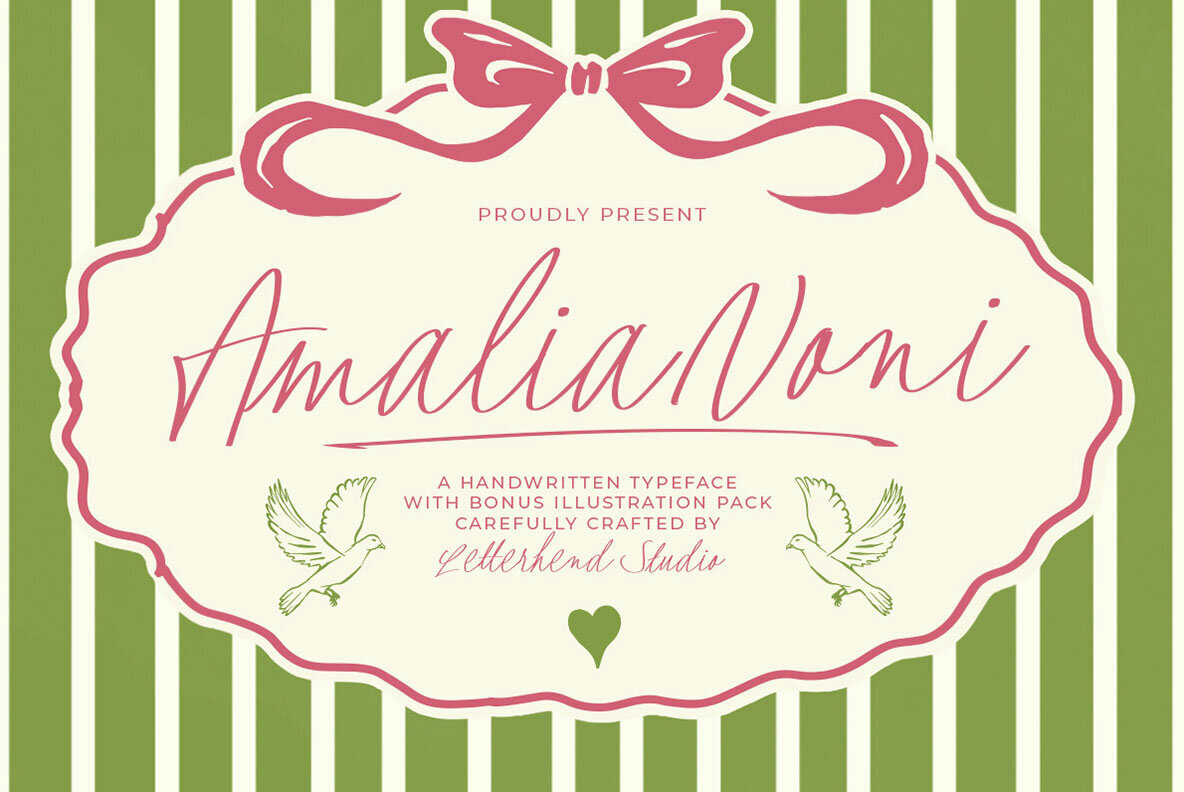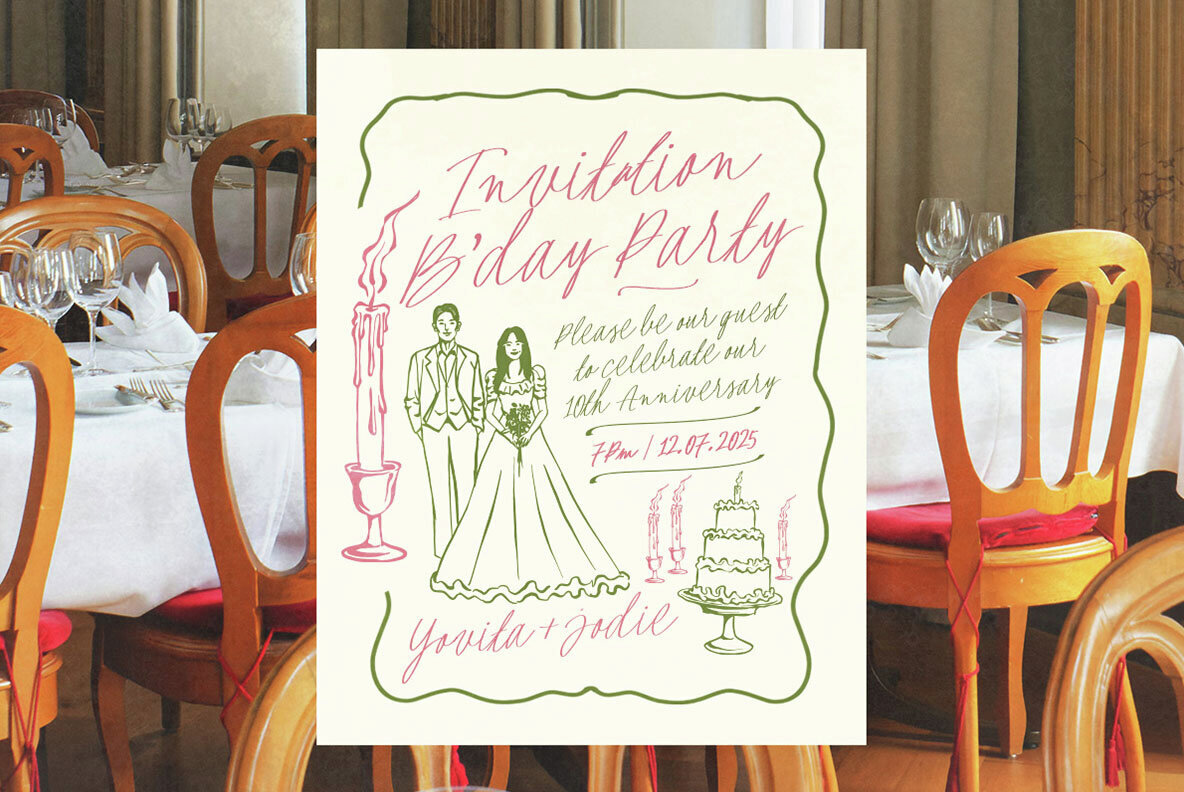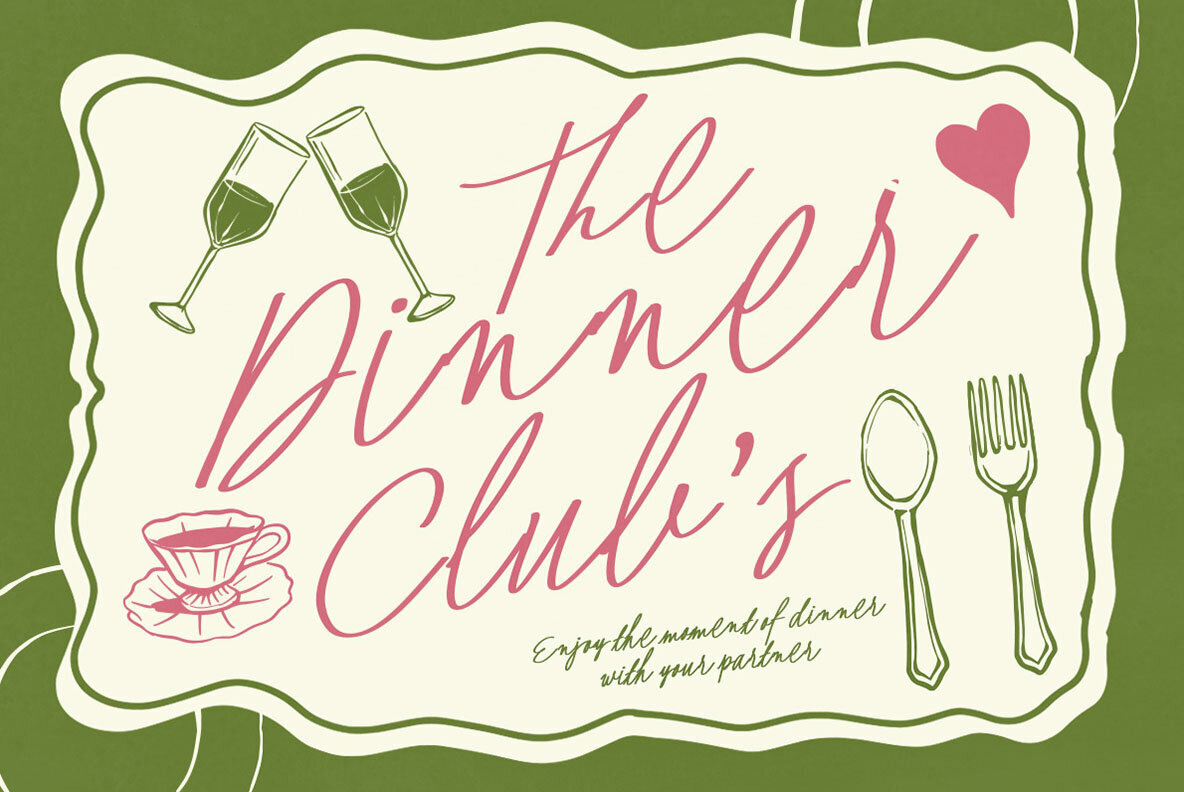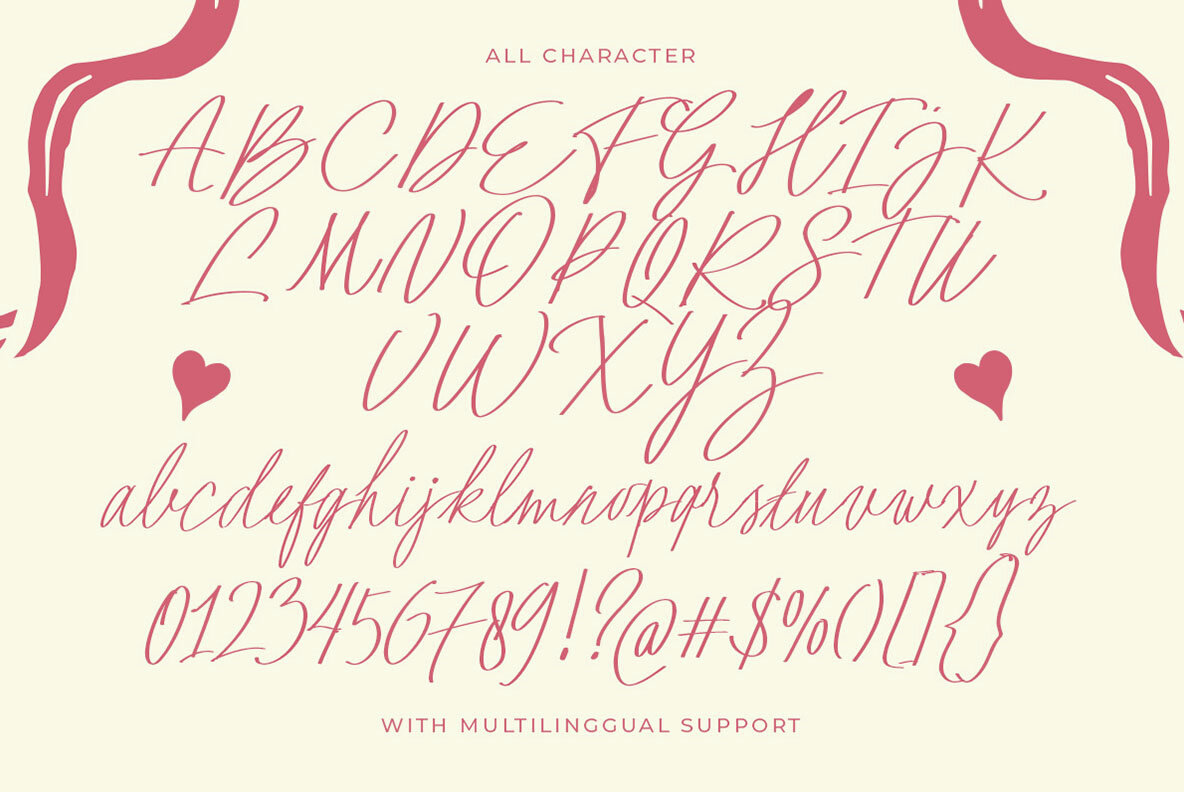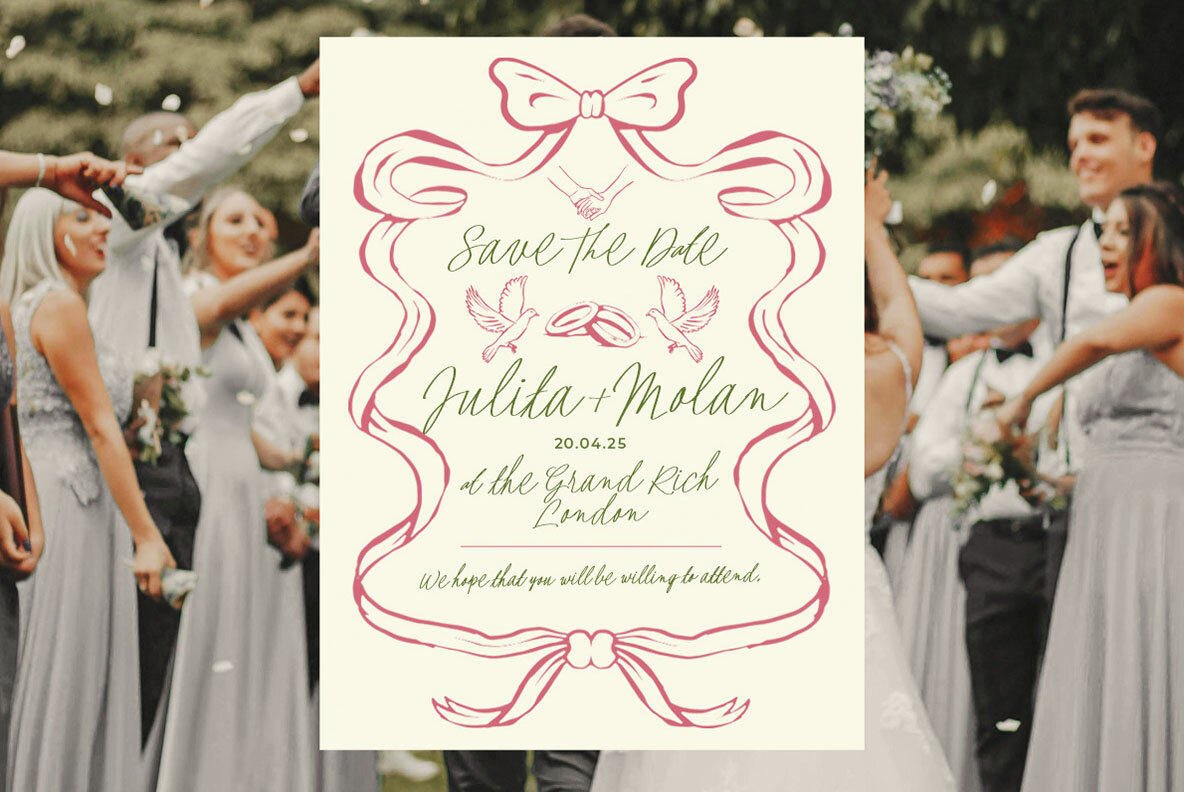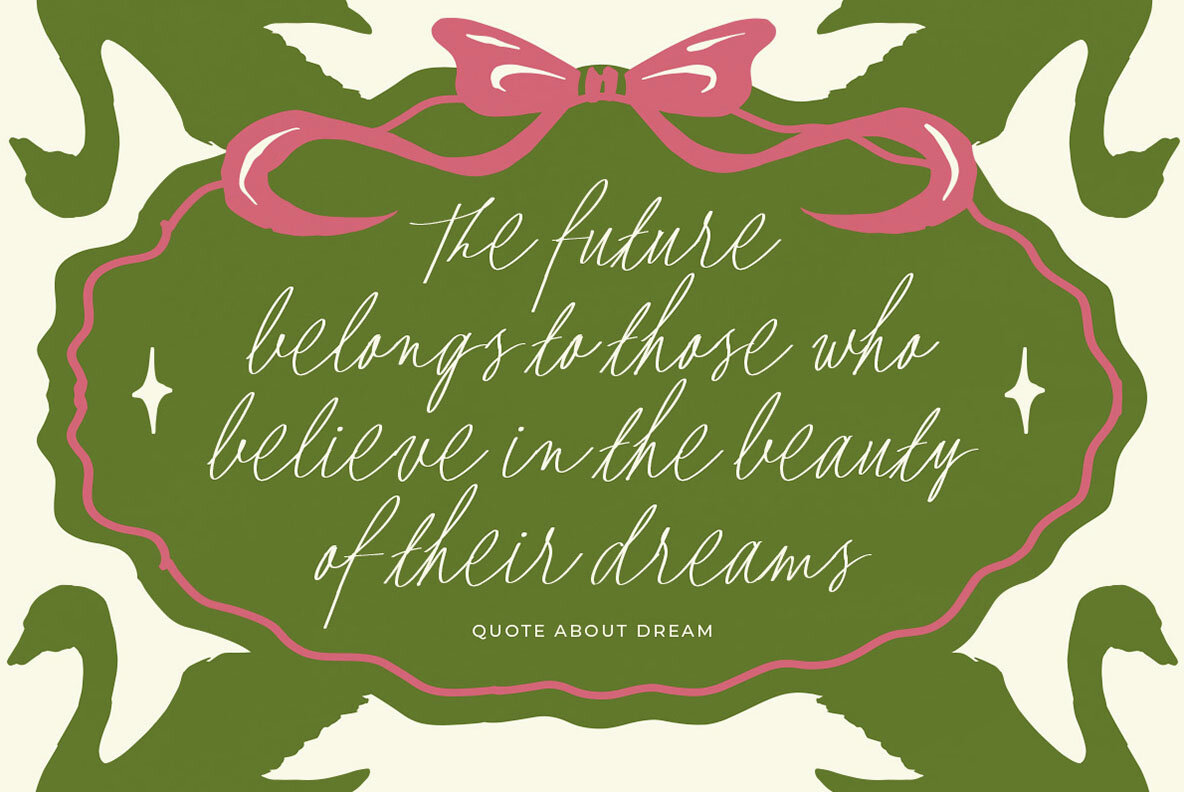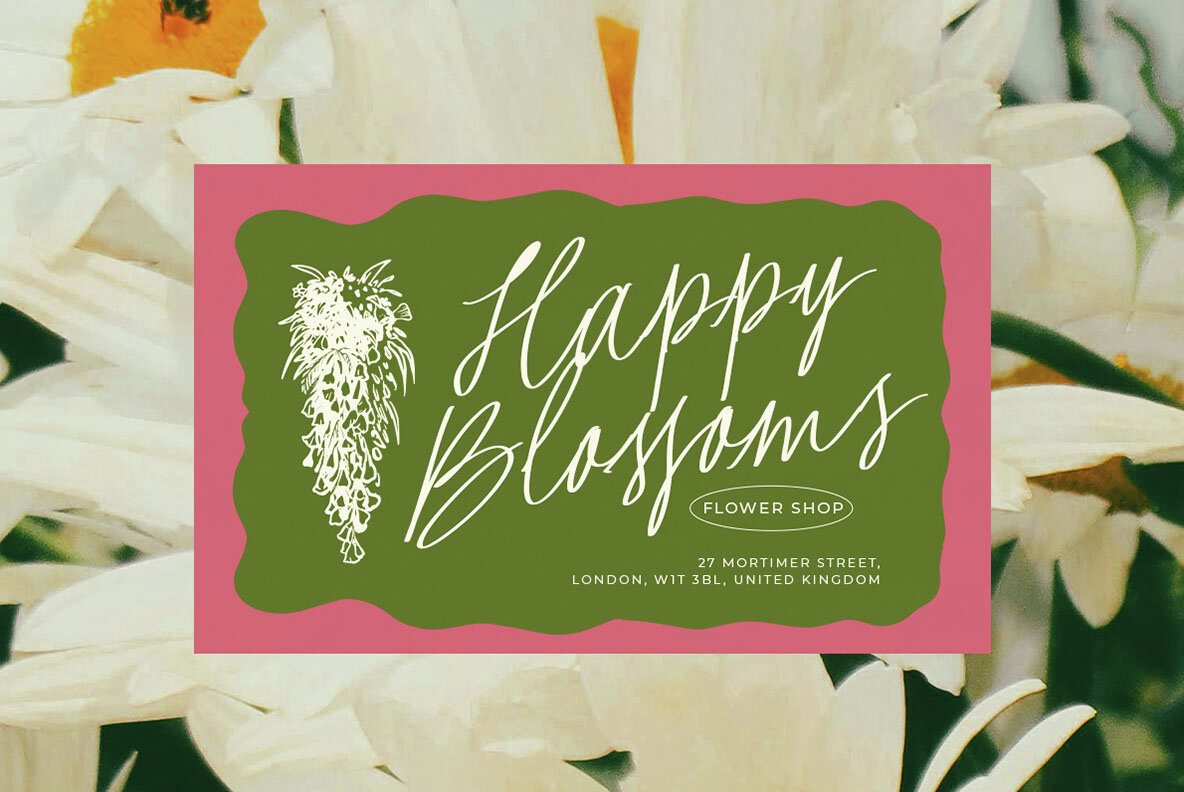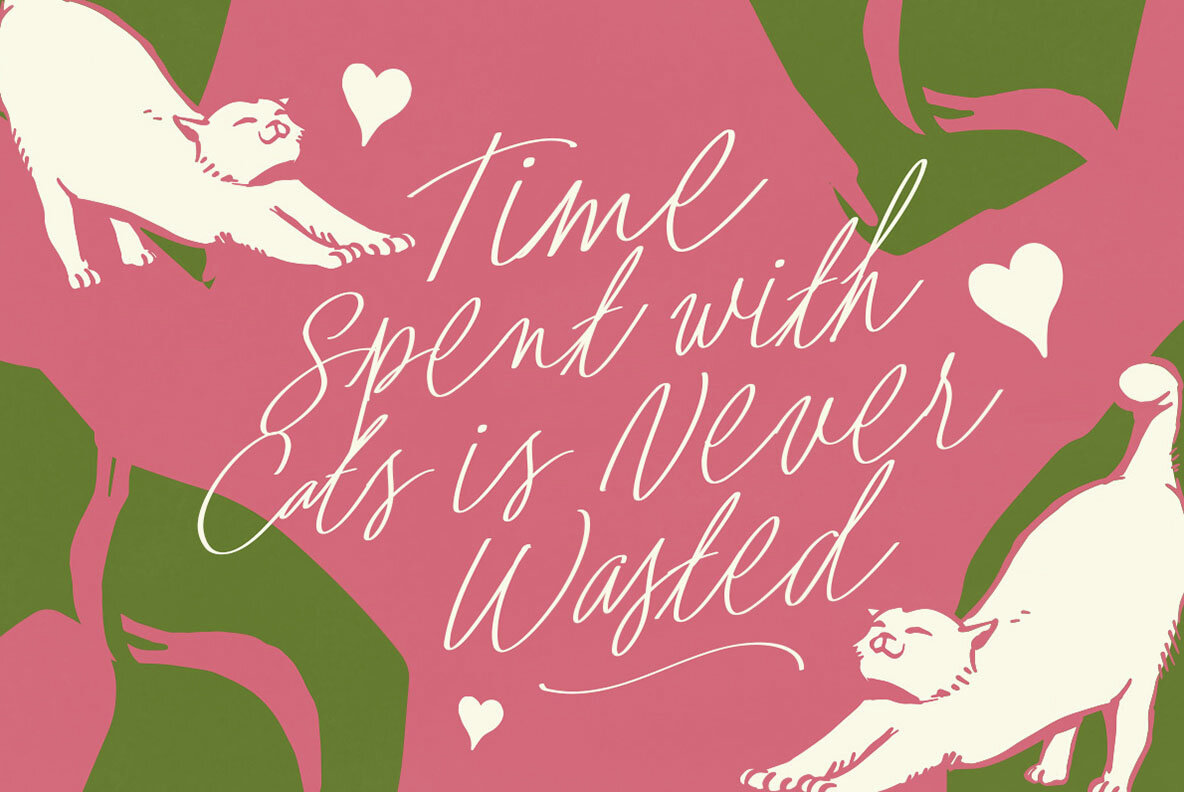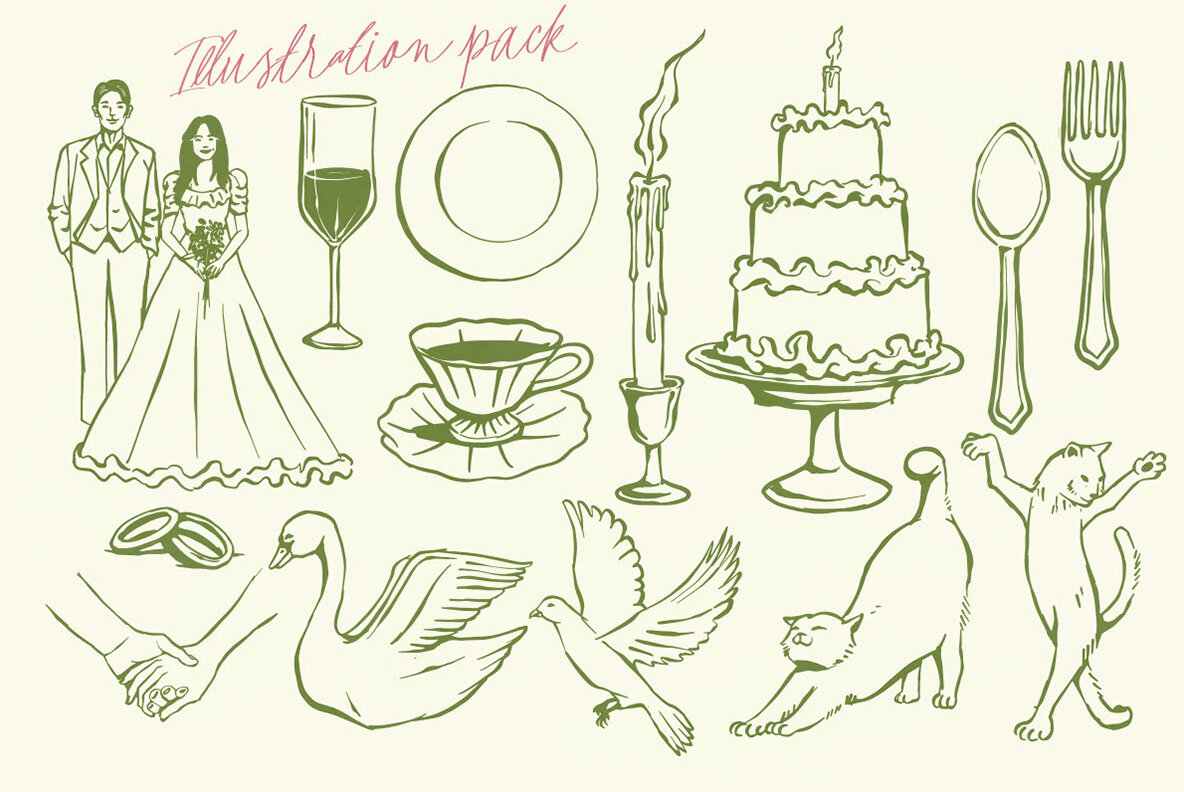
Amalia Noni Font
Amalia Noni is a charming handwritten typeface with a touch of vintage flair, perfect for crafting romantic and whimsical designs. Its flowing, natural strokes give a personal and heartfelt feel, making it ideal for wedding stationery, packaging, feminine branding, and greeting cards. This font also includes a bonus illustration pack, enhancing your creative options with delightful extras that pair beautifully with the script. Features: We highly recommend using a program that supports OpenType features and Glyphs panels like many of Adobe apps and Corel Draw, so you can see and access all Glyph variations.